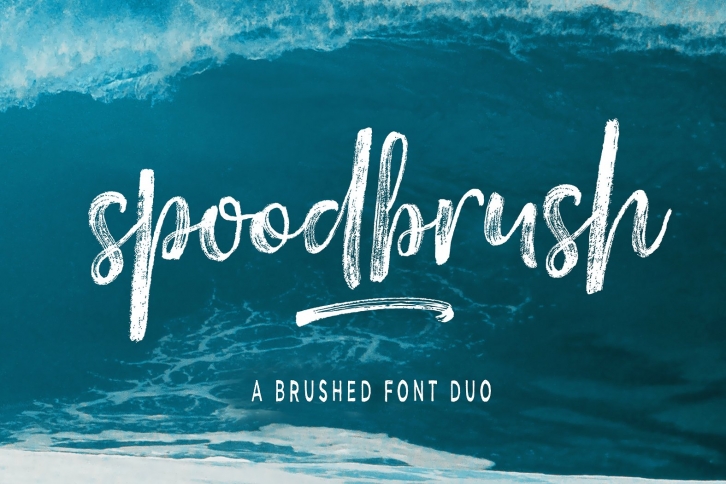
Spoodbrush is a gorgeous font that was realeased on June 30, 2017. The font can be used in many style contexts and design environments. Perfect for invitations, magazines, websites, logos, and more! It was designed by Dhan Studio and the file size is 20.96 MB. Thanks for checking out this font!